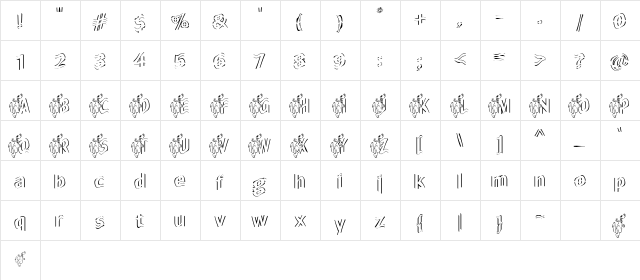
DinoDance Regular Font Preview
DinoDance Regular
Design Context for DinoDance Typeface
DinoDance is a composed and adaptable typeface that performs quietly and consistently across a wide range of design contexts.